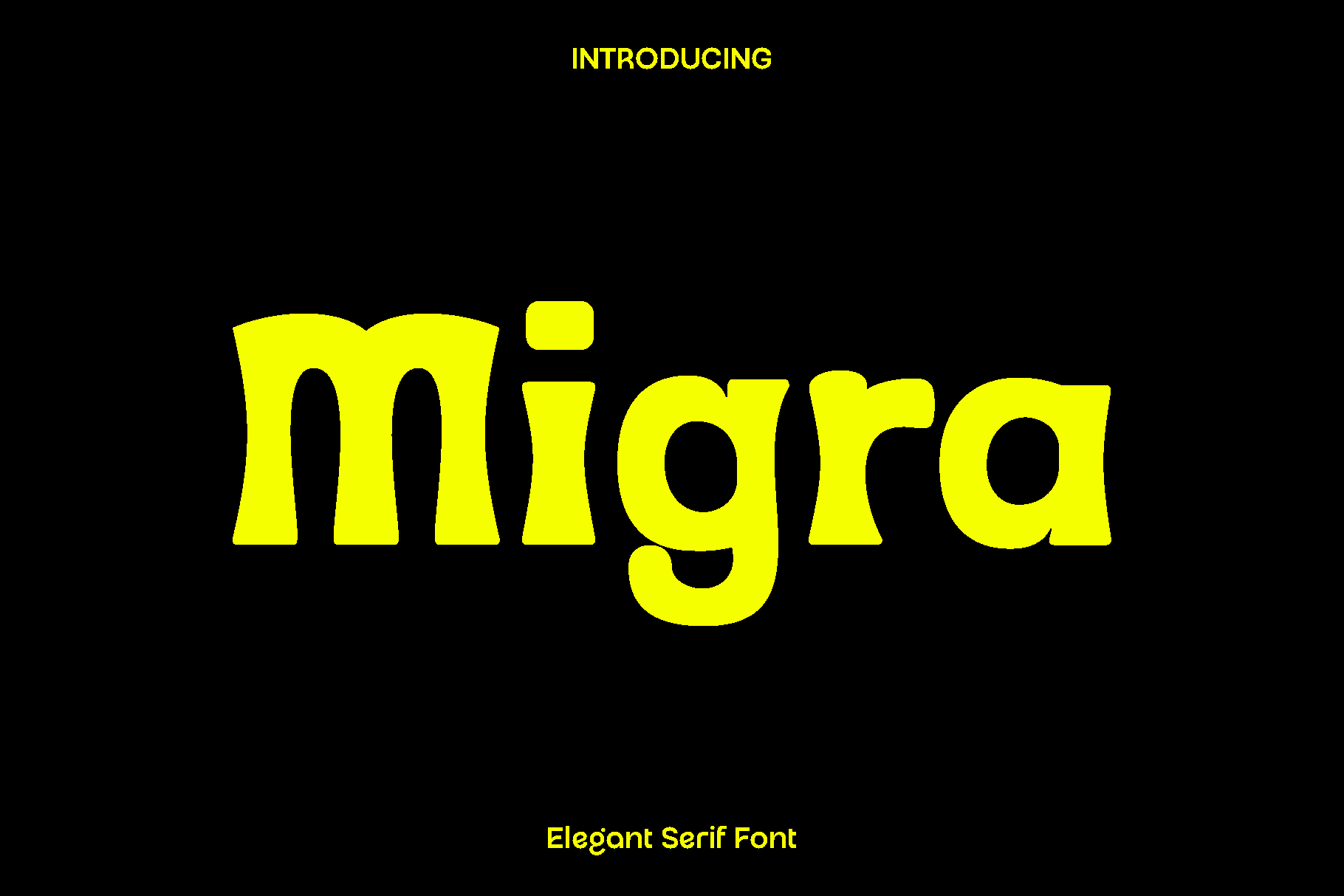
Migra - Retro Serif Font
Migra is a special retro style font designed to capture the charm and character of classic typography with a refined modern touch. Inspired by vintage design eras and nostalgic visual culture, Migra brings warmth, personality, and confidence into every letter. Each character is crafted with careful precision, creating a bold yet balanced look that feels authentic, expressive, and timeless.
This font shines in projects that aim to stand out with a strong retro identity. Migra is perfect for branding design, logos, packaging, greeting cards, posters, headlines, apparel, and editorial layouts. Its distinctive shapes and confident structure help create memorable visuals that instantly connect with a vintage inspired aesthetic while remaining clear and impactful.
Migra feels playful, bold, and charismatic. It is ideal for designers who want to add character and storytelling to their work without losing versatility. Whether used in large display settings or as a key branding element, Migra enhances designs with a nostalgic mood and eye catching presence that elevates both print and digital projects.
Migra Retro Style Font Features:
• Retro inspired display characters
• Strong and expressive letterforms
• Perfect for branding, logos, packaging, and headlines
• Uppercase and lowercase
• Clean and easy to use design